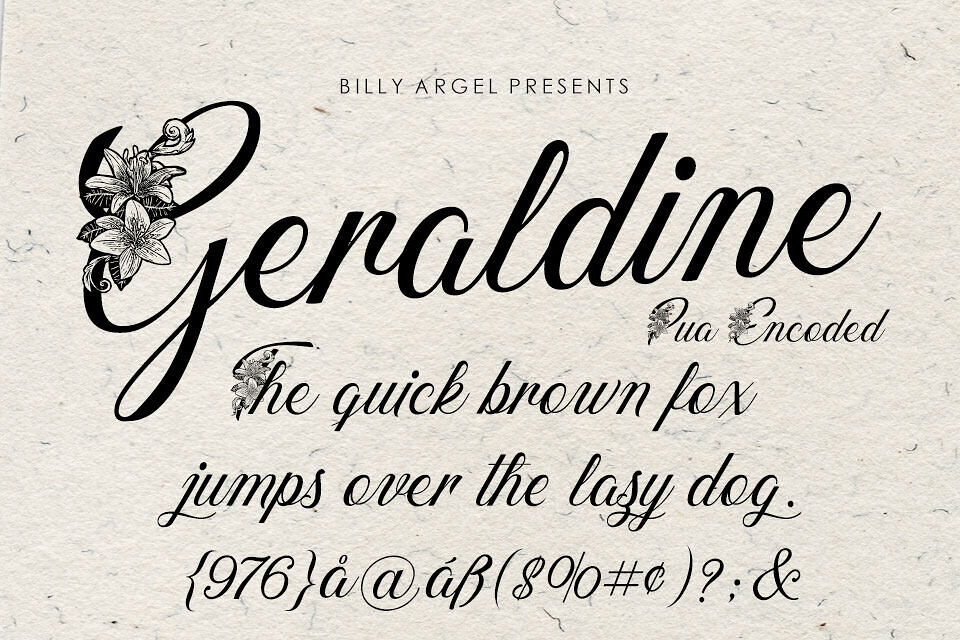
Geraldine is a sophisticated script font designed by Billy Argel. This elegant calligraphy typeface is distinguished by its intricate, floral-inspired uppercase characters, featuring beautifully detailed lily ornaments.
Defined by fluid, flowing strokes and a romantic aesthetic, Geraldine is PUA encoded, ensuring seamless access to its decorative glyphs. Perfect for wedding invitations, branding, and luxury typography, this handwritten font brings an artistic, handcrafted touch to any project.